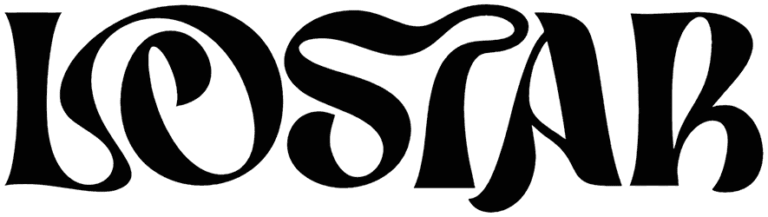
Midtown Groveed Font
Midtown Groveed font exudes a sense of professionalism with its refined appearance, making it perfect for projects that require class. This real estate font doesn’t have lowercase letters, but it offers subtle details in its two uppercase weights that add an aesthetic feel and help guide the eye along each line of text.
The biggest strength of Midtown Groved is in conveying a sense of authority. It can be ideal for designing logos, catalogs, and websites of name-seeking brands and giving them credibility.